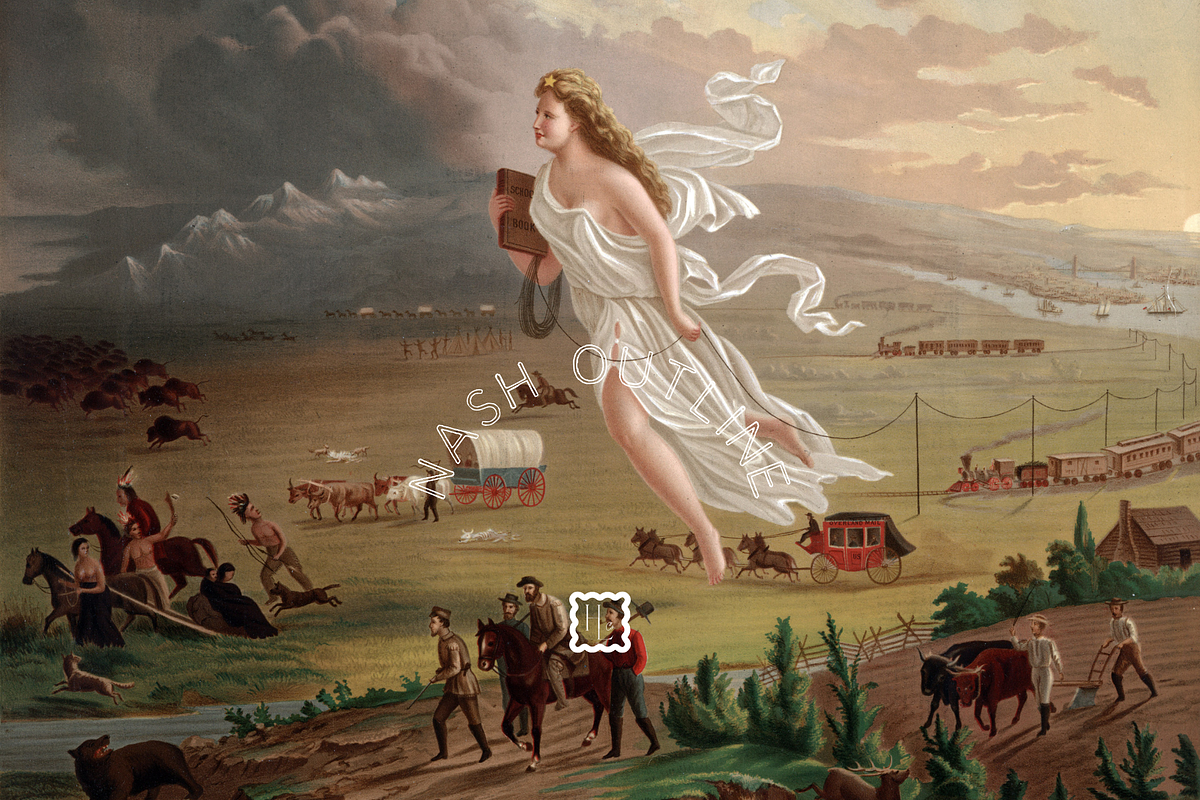
Nash Outline
Nash Outline is a bold yet minimal typeface that blends vintage charm with modern edge. Its clean strokes and airy, open form feel both rugged and refined — reminiscent of faded neon signs or hand-painted lettering along a western main street. Perfect for logos, posters, and designs that need a touch of nostalgia without losing sophistication. Featuring A–Z, numbers, and simple symbols, Nash Outline includes both TTF and OTF file formats for easy use.